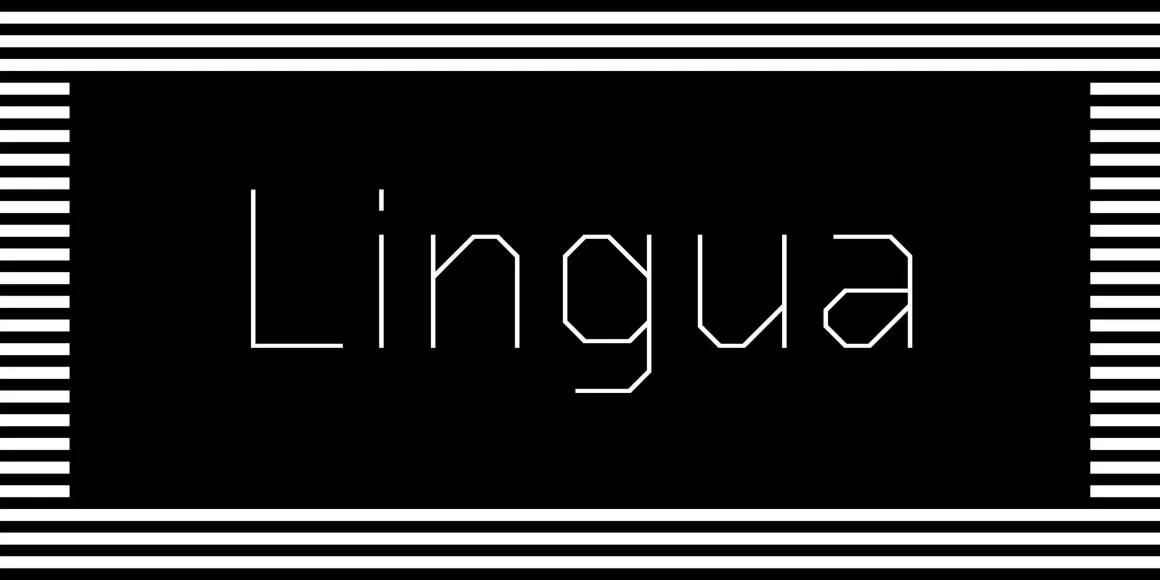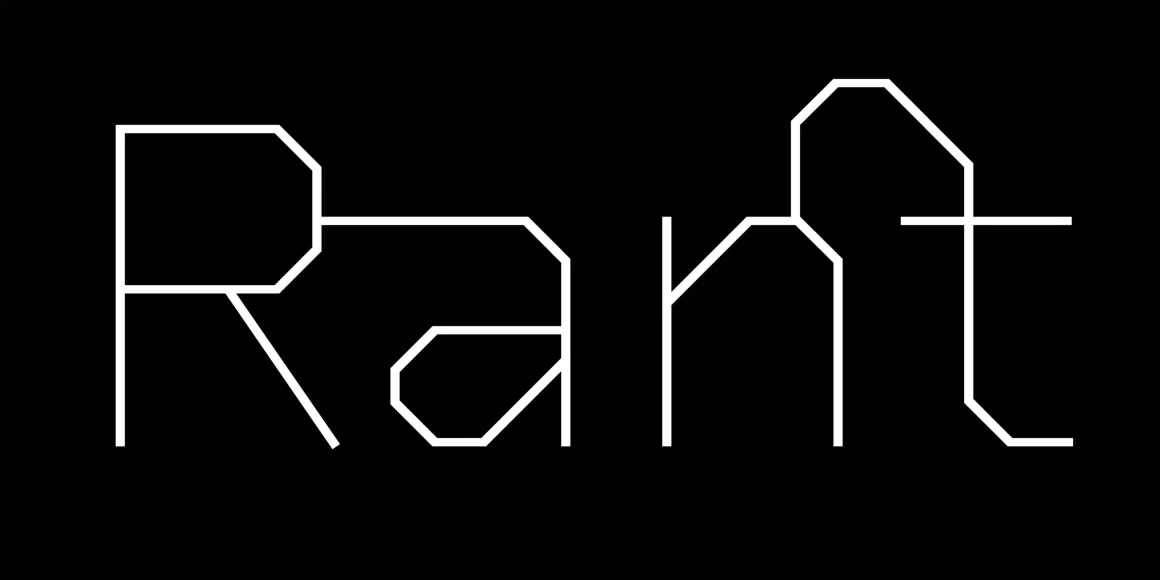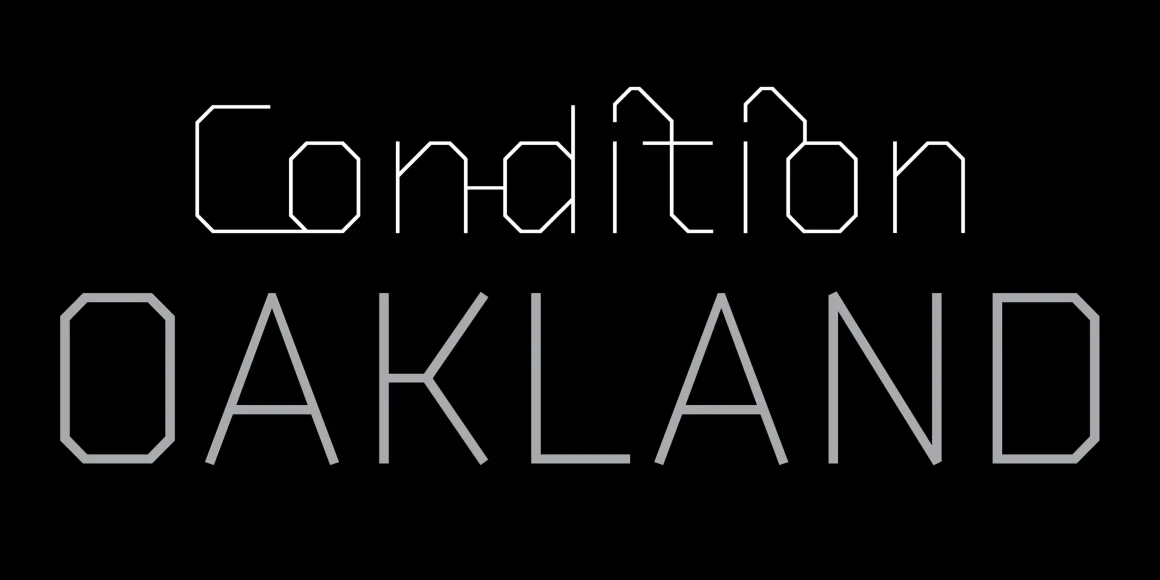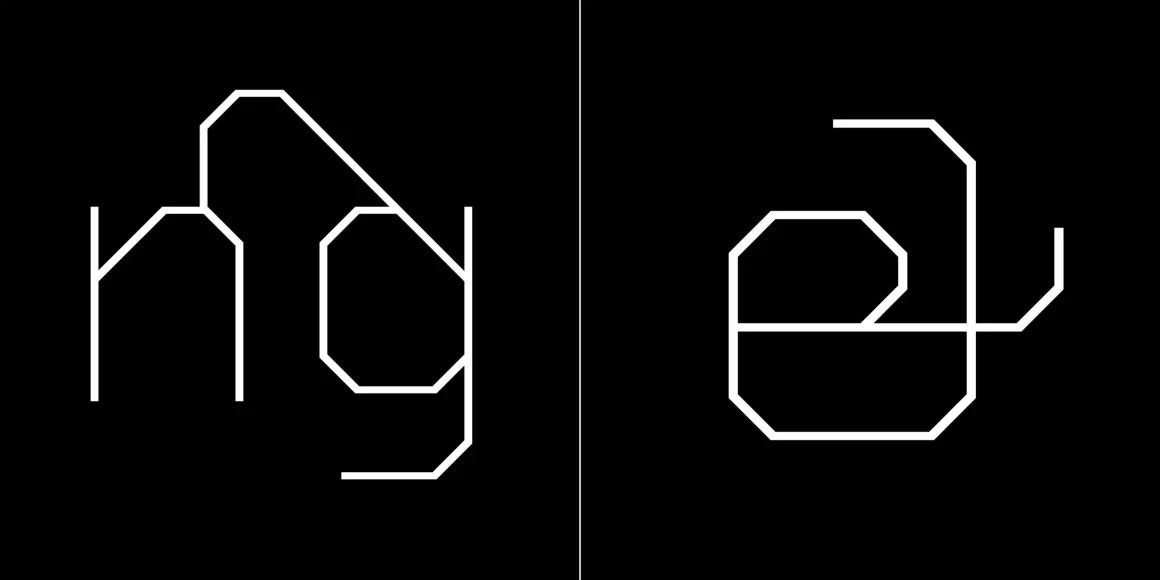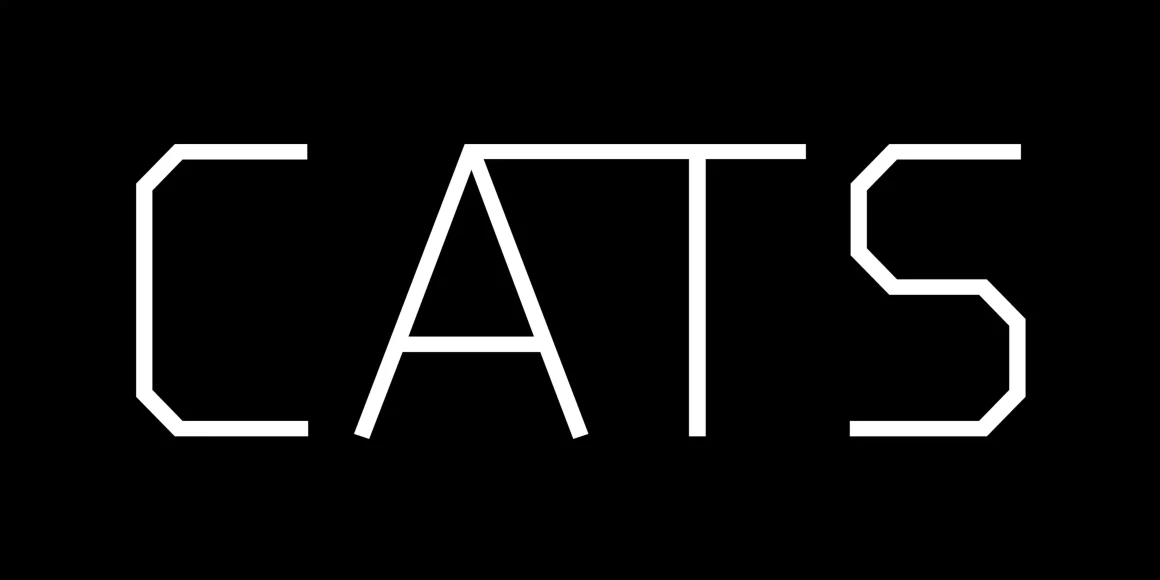
Lingua
From Process Type Foundry
Lingua exploits what is now standard OpenType fare – discretionary ligatures. Lots and lots of discretionary ligatures. So much so that one weight has two distinct sides: with the ligatures deactivated, one side is a hard geometric sans; with the ligatures activated, a near upright script springs to life.
Designed by Eric Olson
Lingua Light
Lingua Regular
Slashed Zero